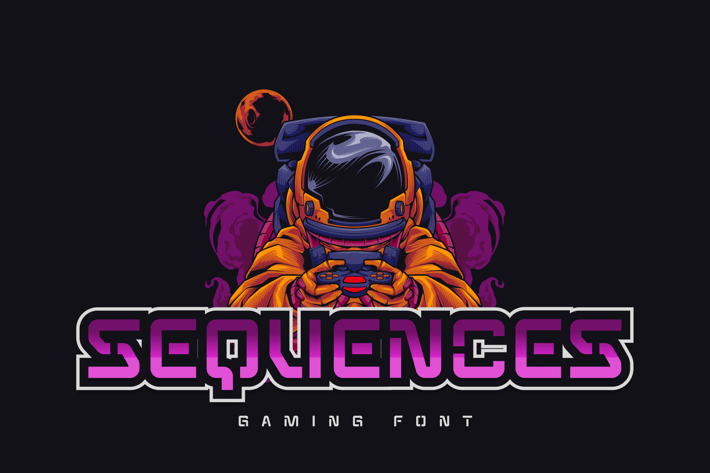
SEQUENCES - Gaming Font
Gaming, sophisticated tech, and all about future technology. Sequences will give you a perfect amount of it for your projects.
Suit perfectly for future and science segmented magazine, poster, movie title, music poster, youtube covers, youtube thumbnails, social media page covers and so on...